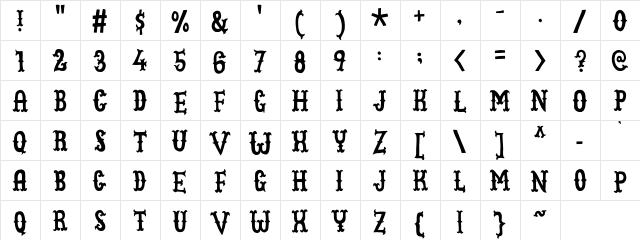
Cowboy Junk DEMO Regular
Design Context for Cowboy Junk DEMO Typeface
Cowboy Junk DEMO echoes the hand-painted signage and woodblock typography of the American frontier, with a warm, rugged personality.
A natural fit for craft spirits, ranch branding, rodeo events, and Americana-inspired design work.
Font Pairing: Combine Cowboy Junk DEMO with a simple slab or neutral sans — period-accurate companions reinforce the vintage feel without competing for attention.
Pro Tip: Use Cowboy Junk DEMO for short, impactful bursts of text — it shines in poster headlines and product names rather than extended copy.